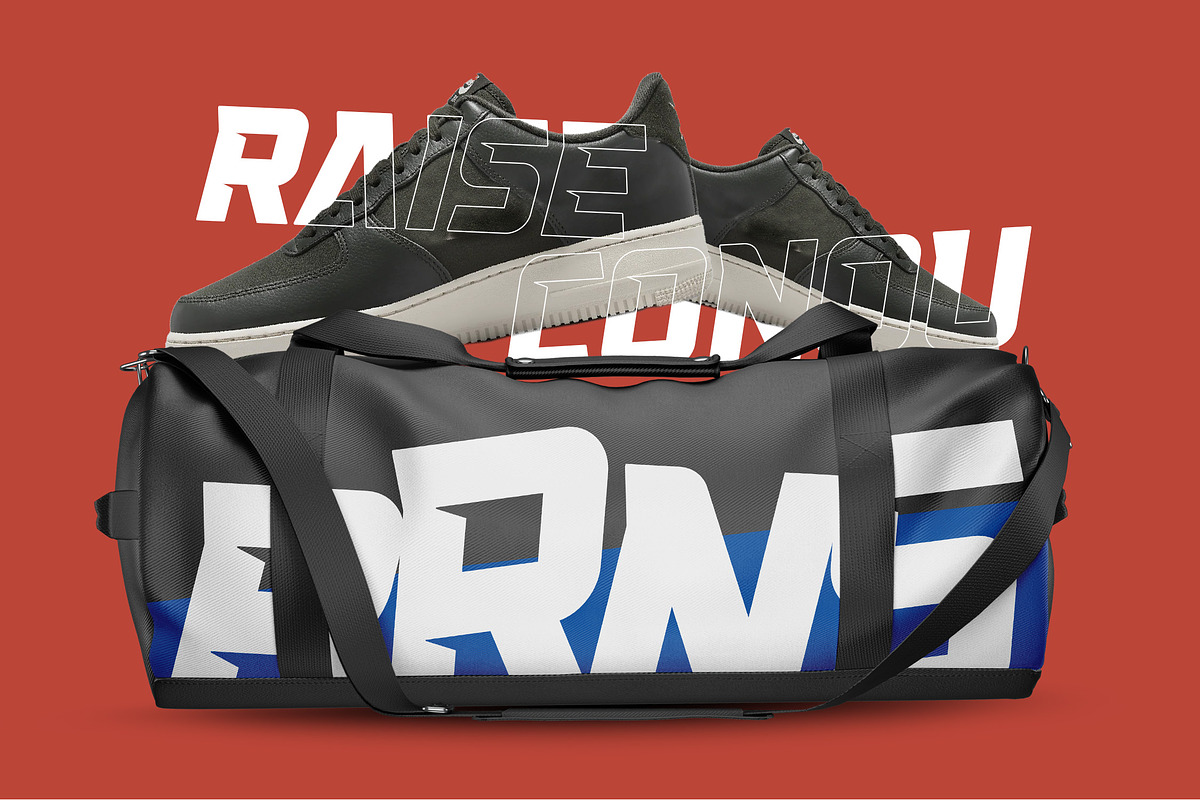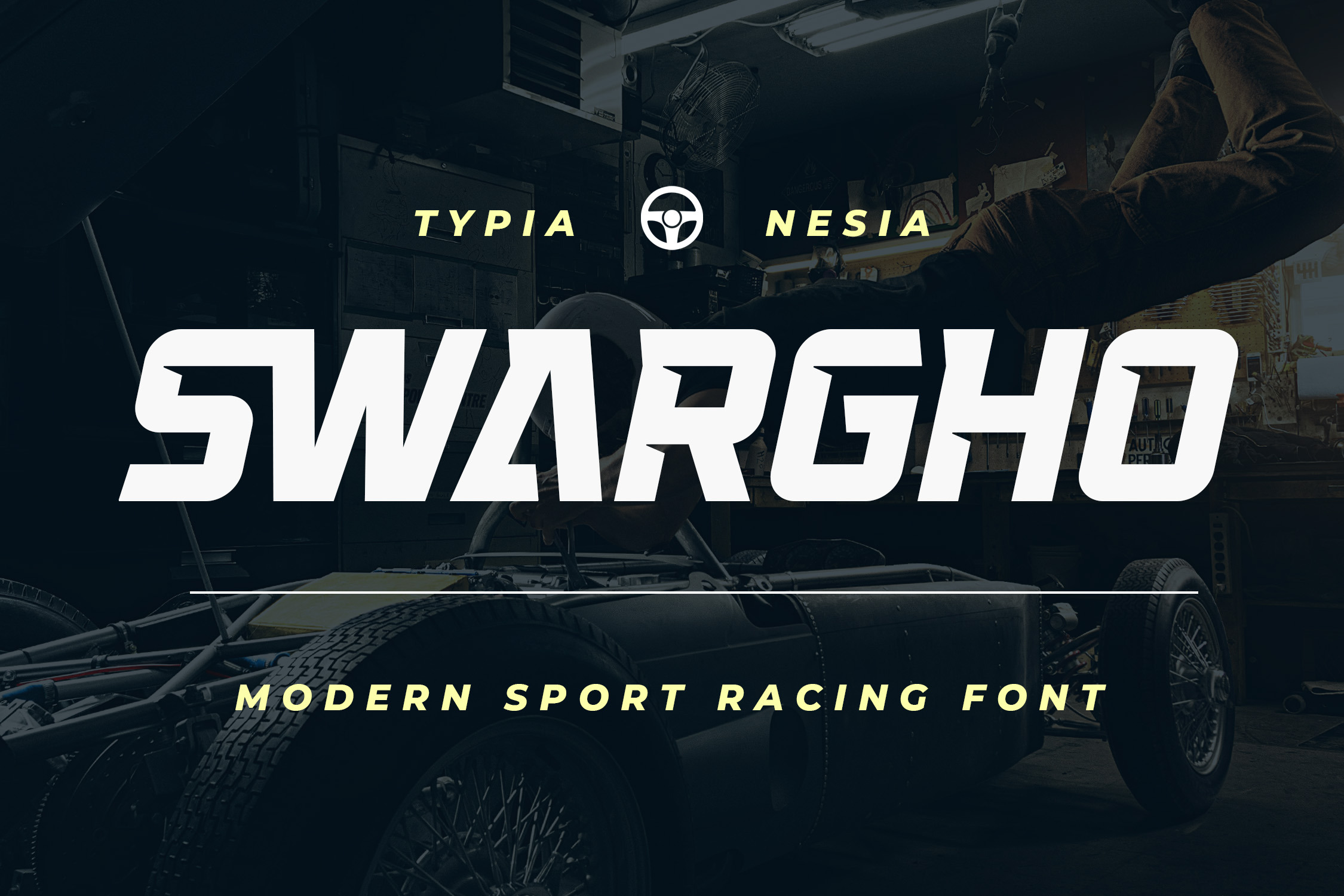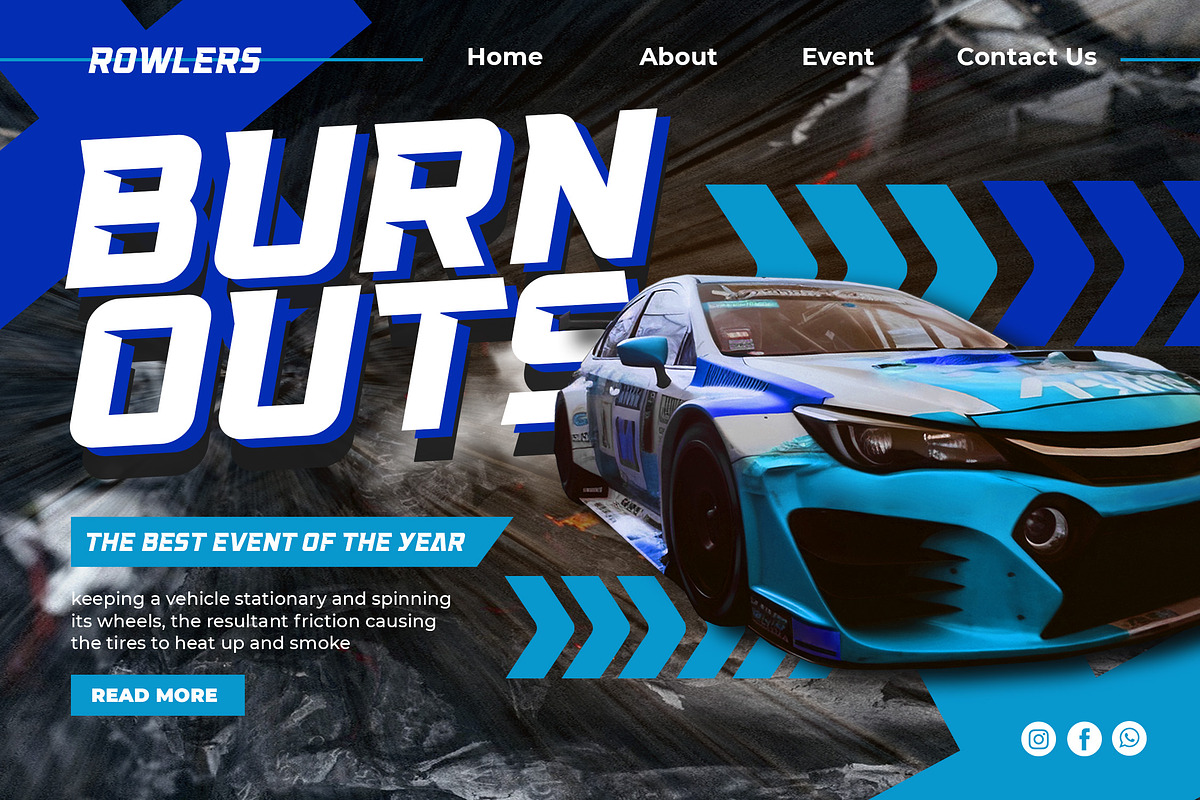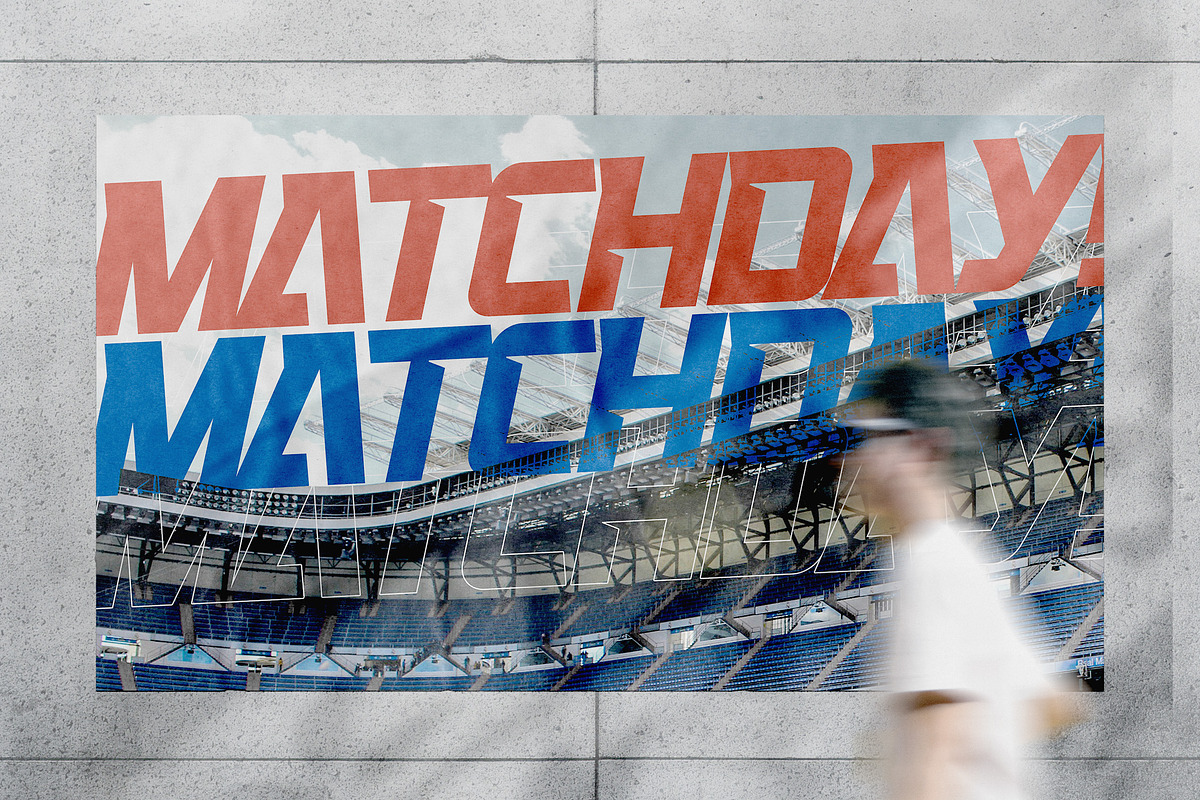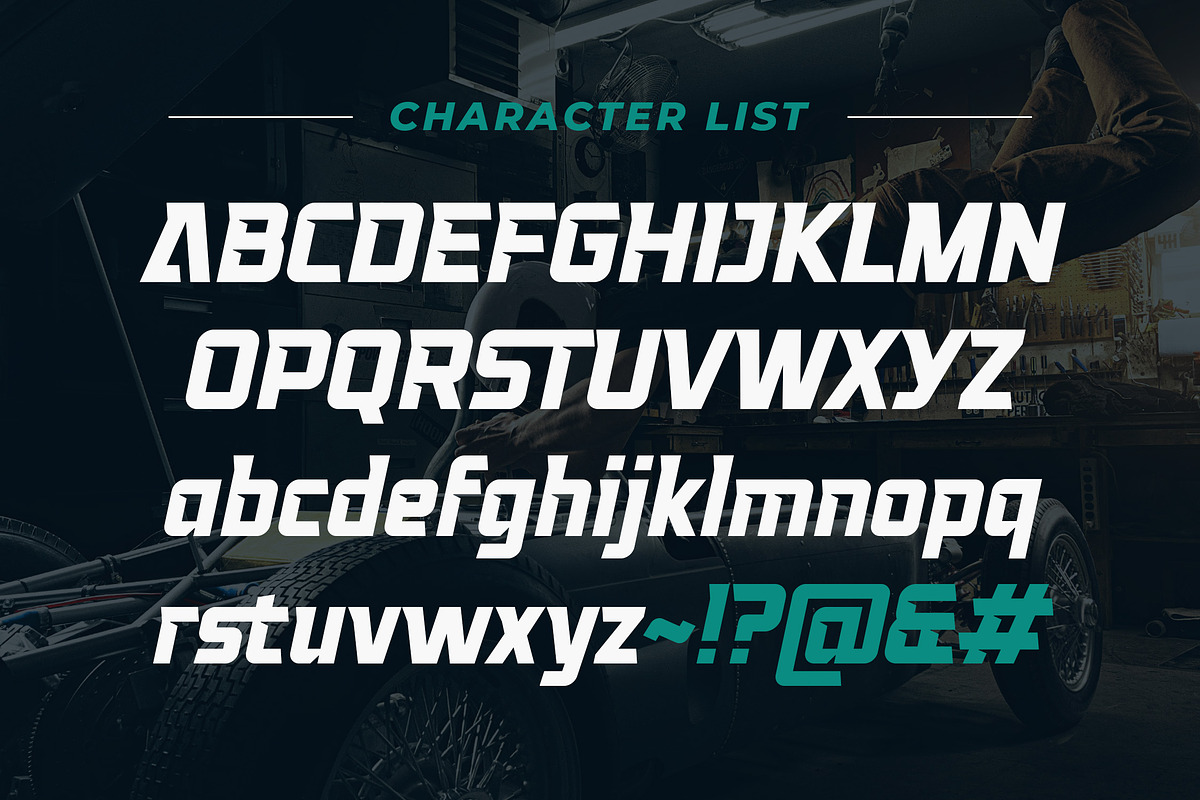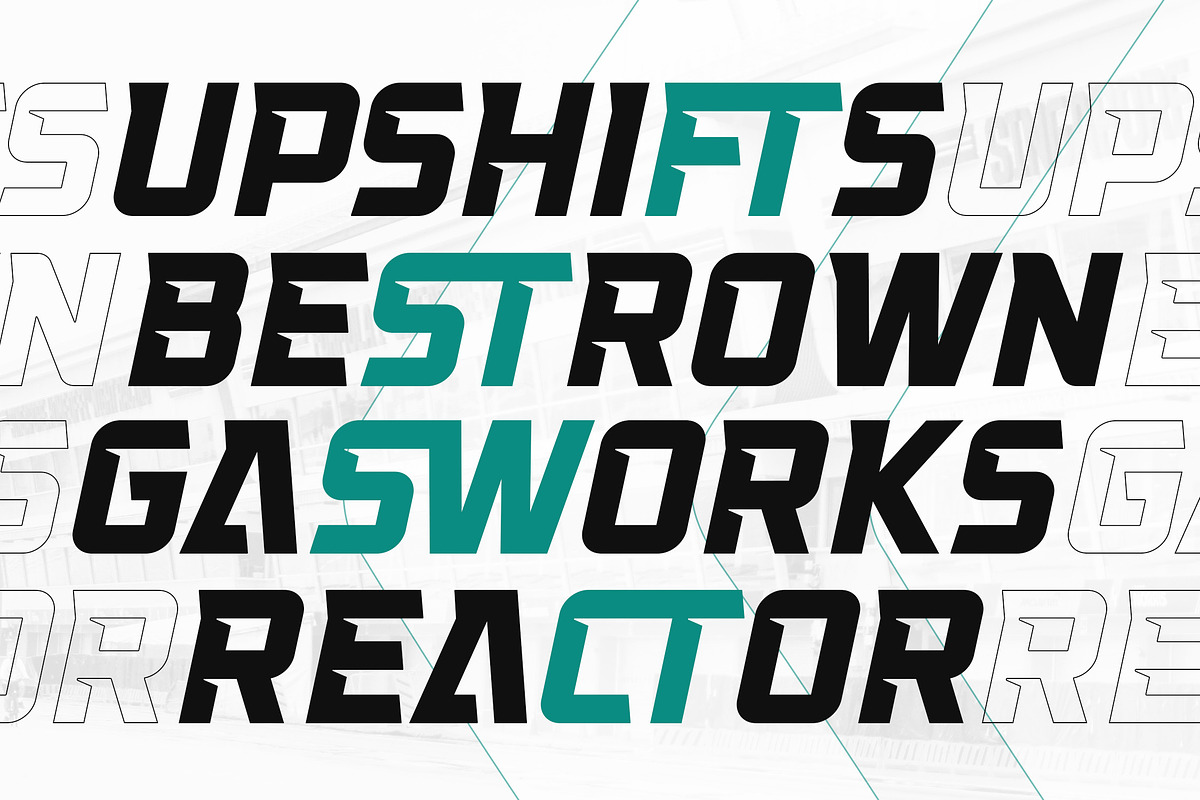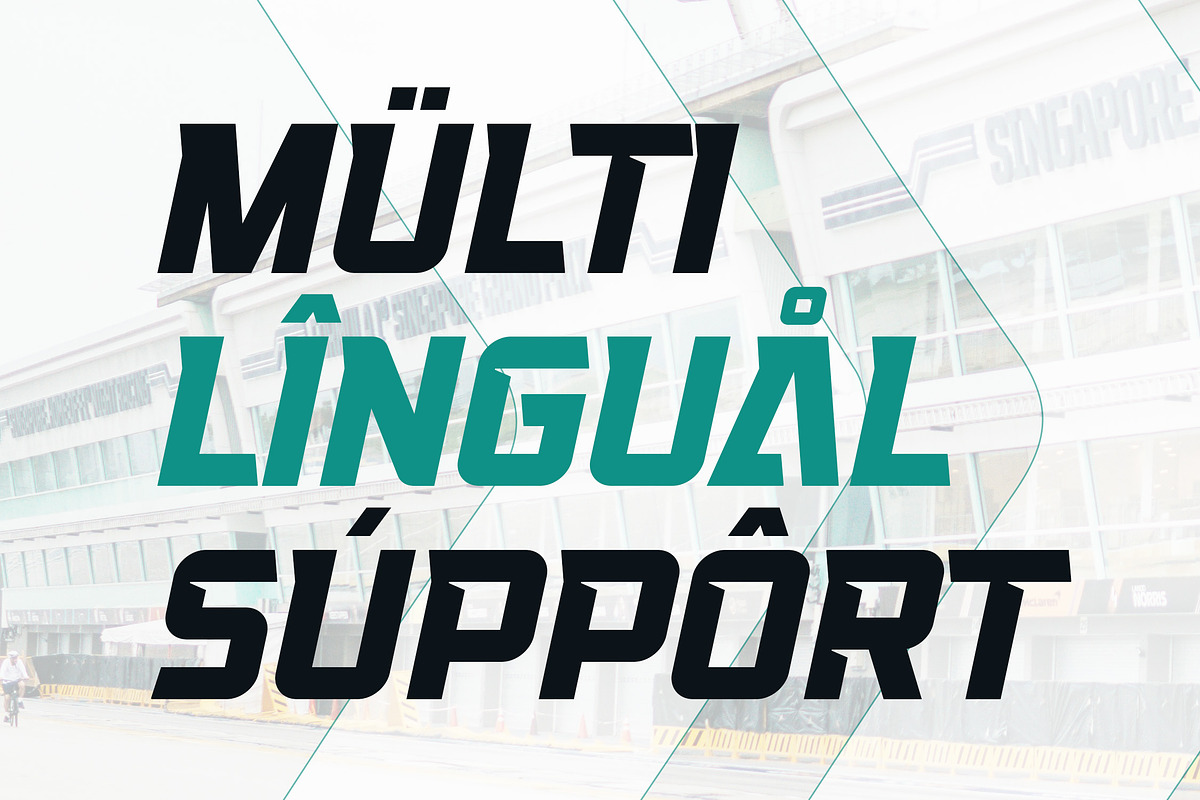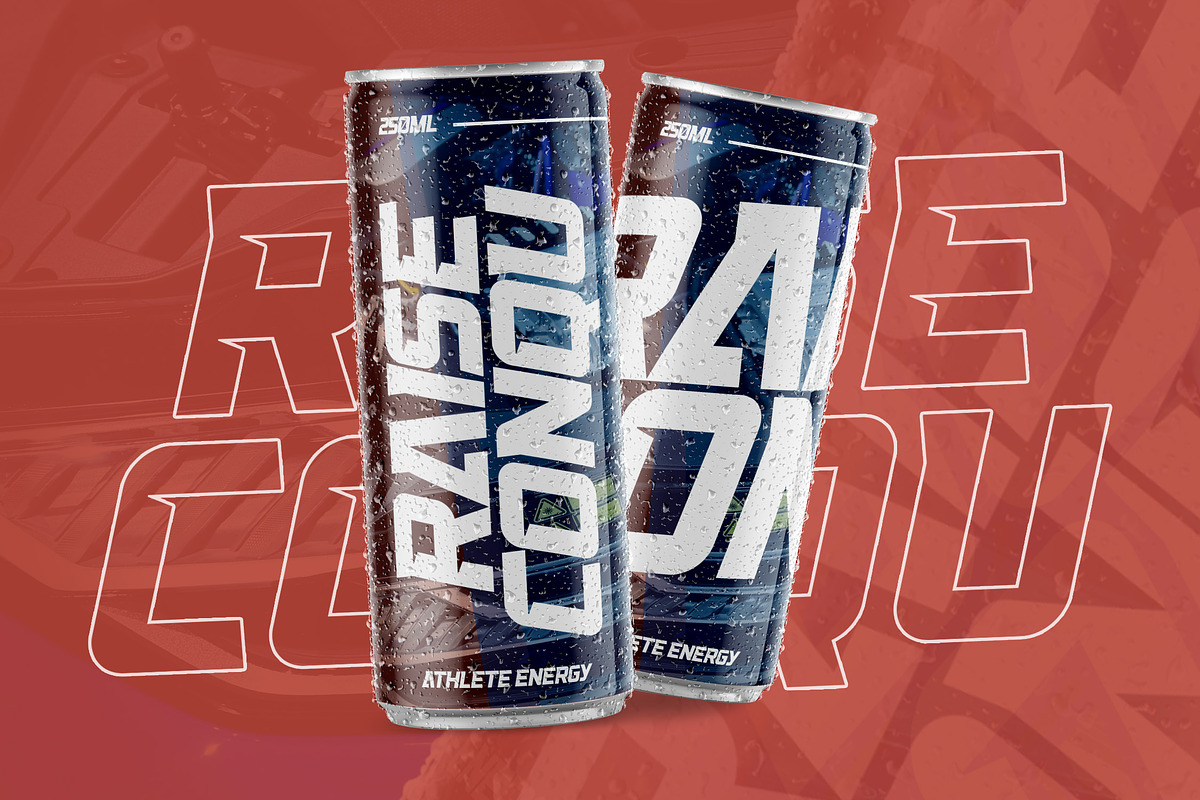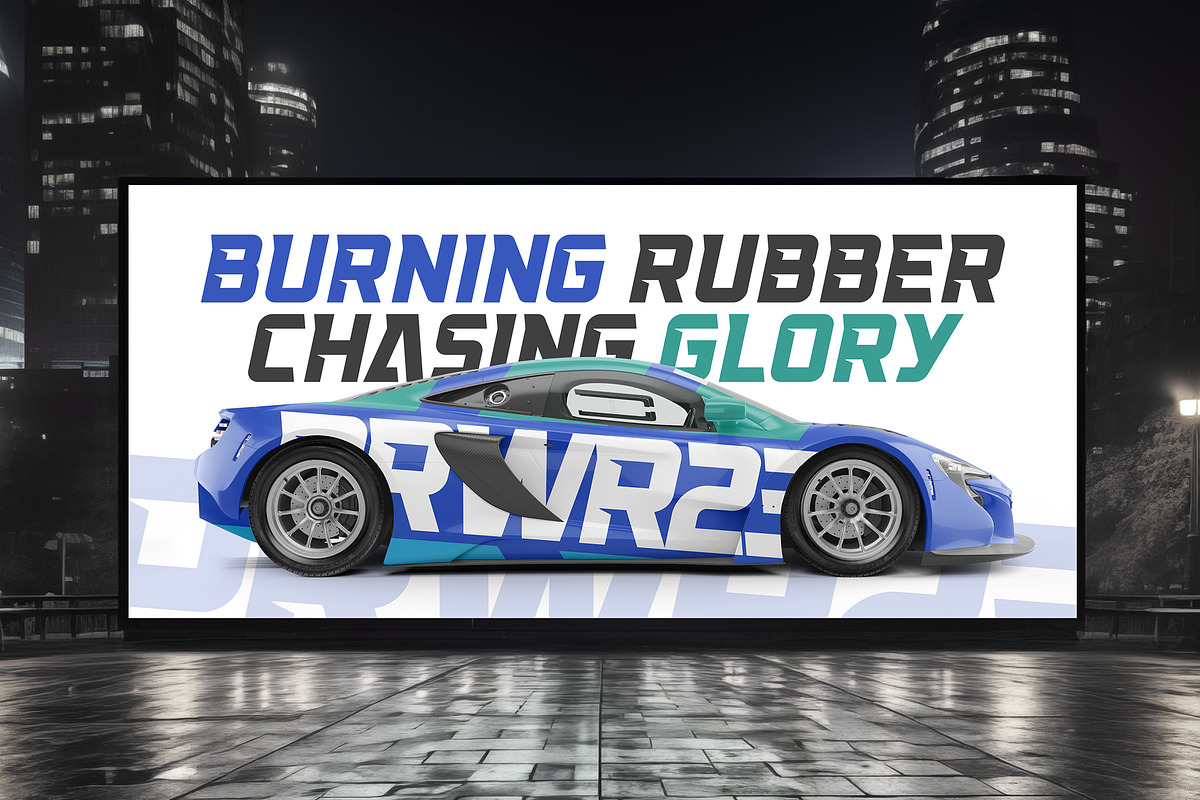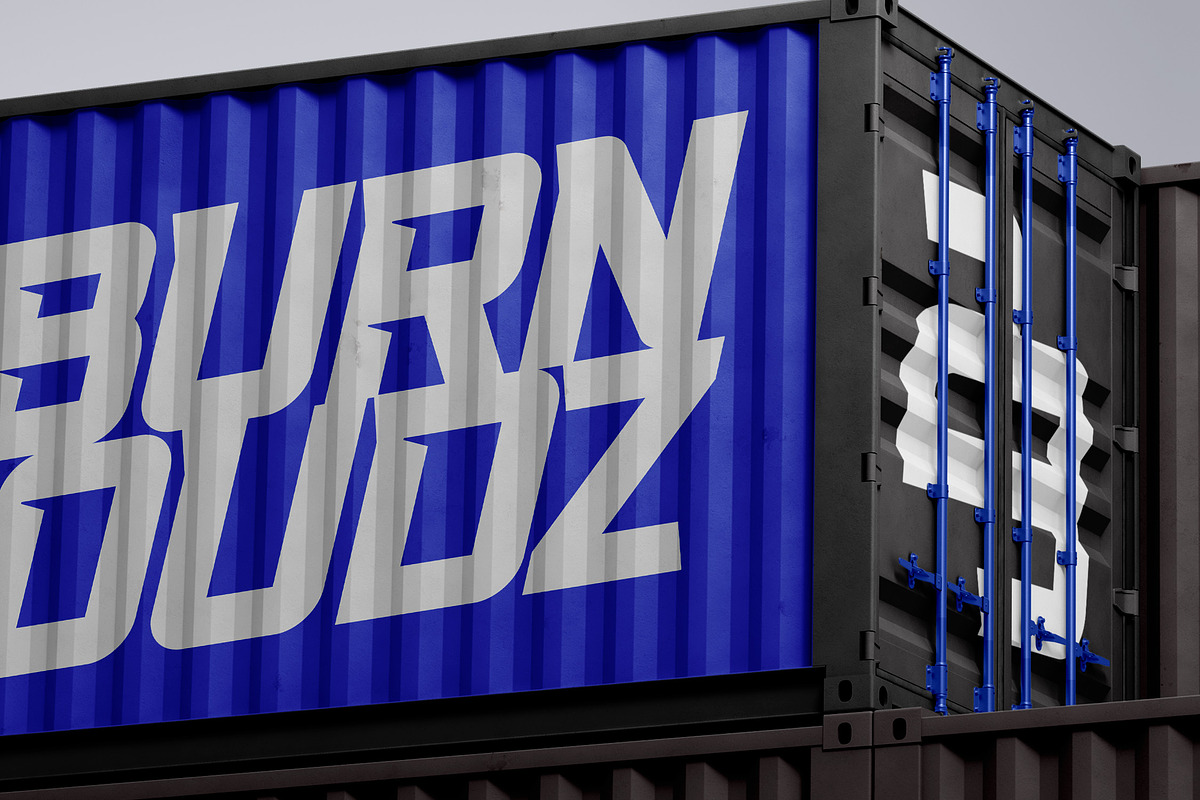
Swargho - Modern Sport Racing Font
Swargho - Modern Sport Racing Font - Bold Italic Ink-trap Display Font.
Swargho is a Modern Sport Racing Font designed to bring a sense of speed, power, and contemporary flair to your projects. Captures the essence of competitive spirit and motion, making it ideal for sports branding, race car graphics, athletic apparel, event posters, and dynamic digital content. Its bold and striking appearance ensures your text stands out, making it ideal for logos, headlines, and other attention-grabbing design elements. Comes with ligatures that enhance its versatility and creative potential and seamless character combinations includes as a full set of uppercase and lowercase letters, punctuation, numerals, and alternates. Additionally, it offers extensive multilingual support, making it suitable for a global audience. Designed with precision and a deep understanding of modern sports aesthetics, Swargho combines cutting-edge design with functional readability.